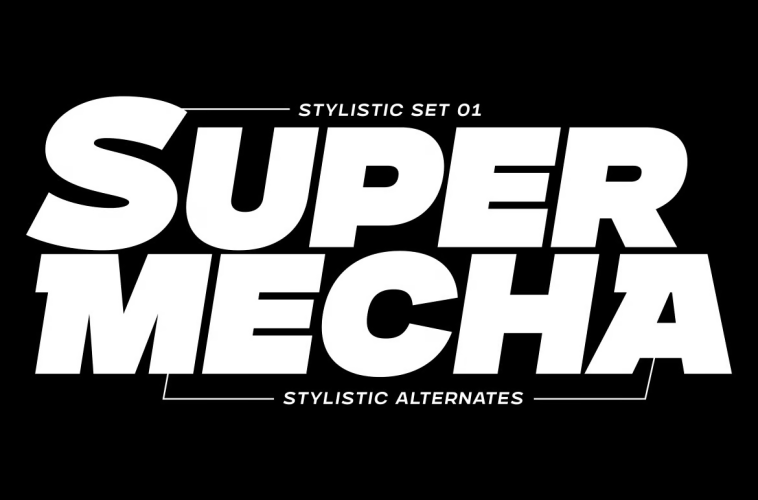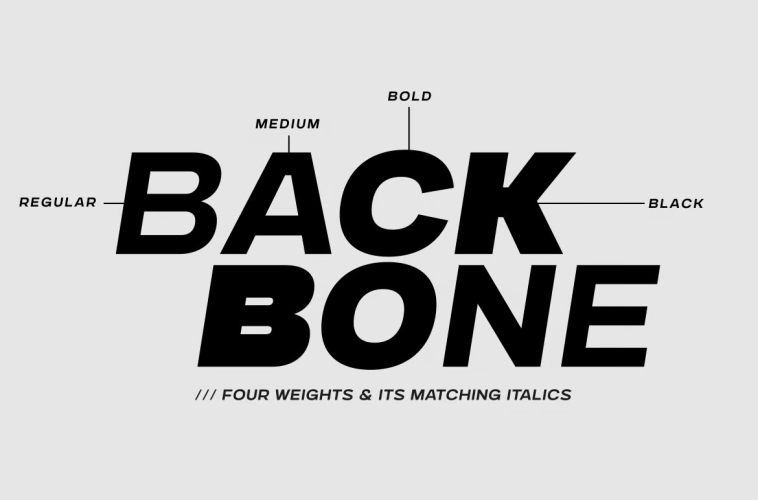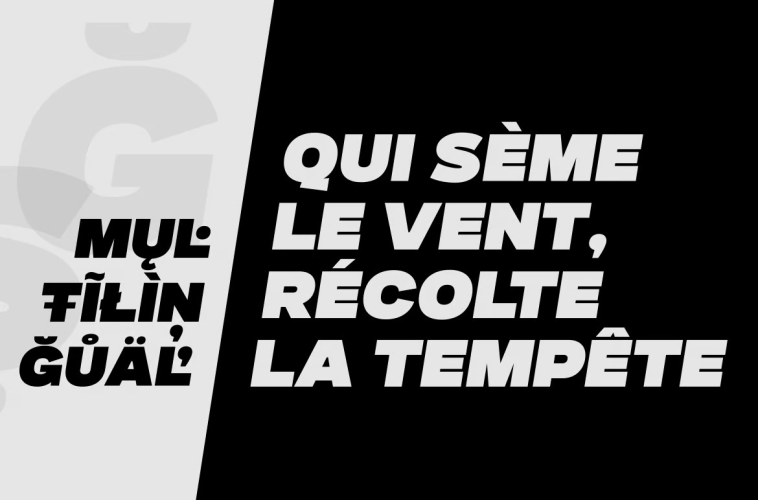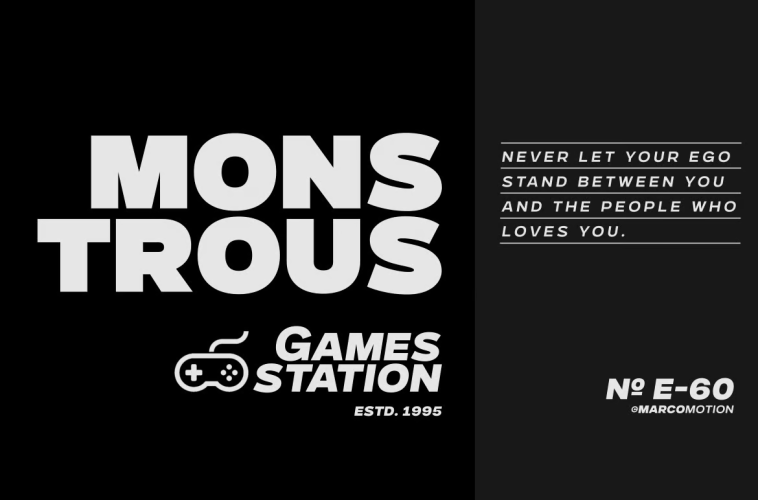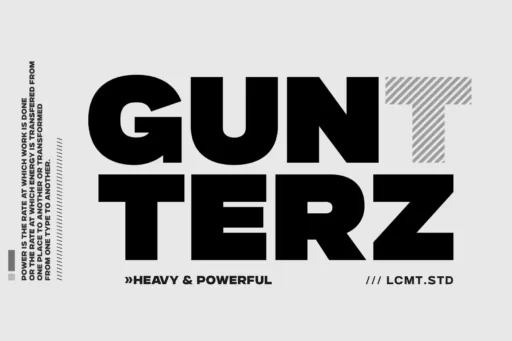
Gunterz Font
Gunterz is a powerful font that supports all capital letters and the use of the sans-serif will make your statement stand out. It is the best way to increase the value that your projects bring to the table.
Gunterz is available in four weights with the italic fonts that are similar to the regular weights. It has OpenType features such as stylistic alternates and stylistic sets to give it a form of elegance. Also, Gunterz has a support for Cyrillic characters therefore it can be used on different Platforms.
Where Gunterz Font works best
Gunterz Font stays legible at small sizes, which makes it a strong choice for navigation, buttons and dashboards in web design and app interfaces.
Clean sans serifs like Gunterz Font are the default language of SaaS, fintech and product branding.
What is Gunterz Font good for?